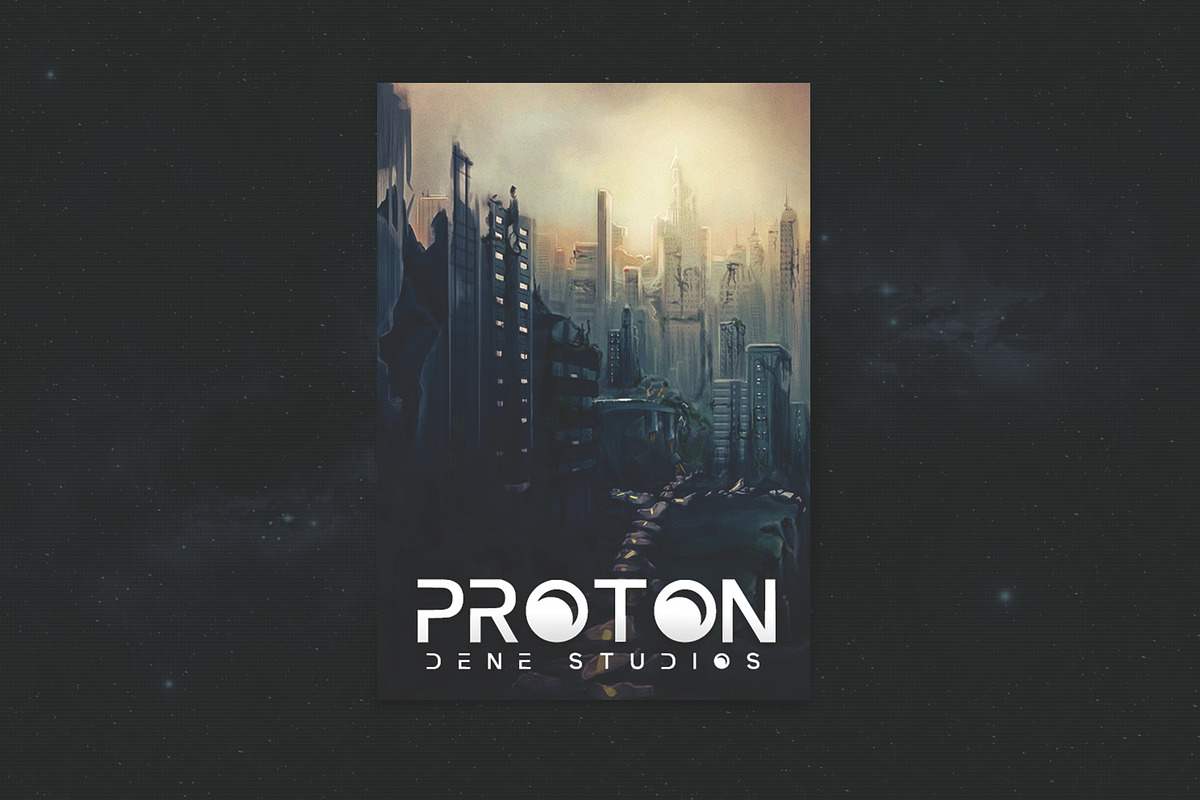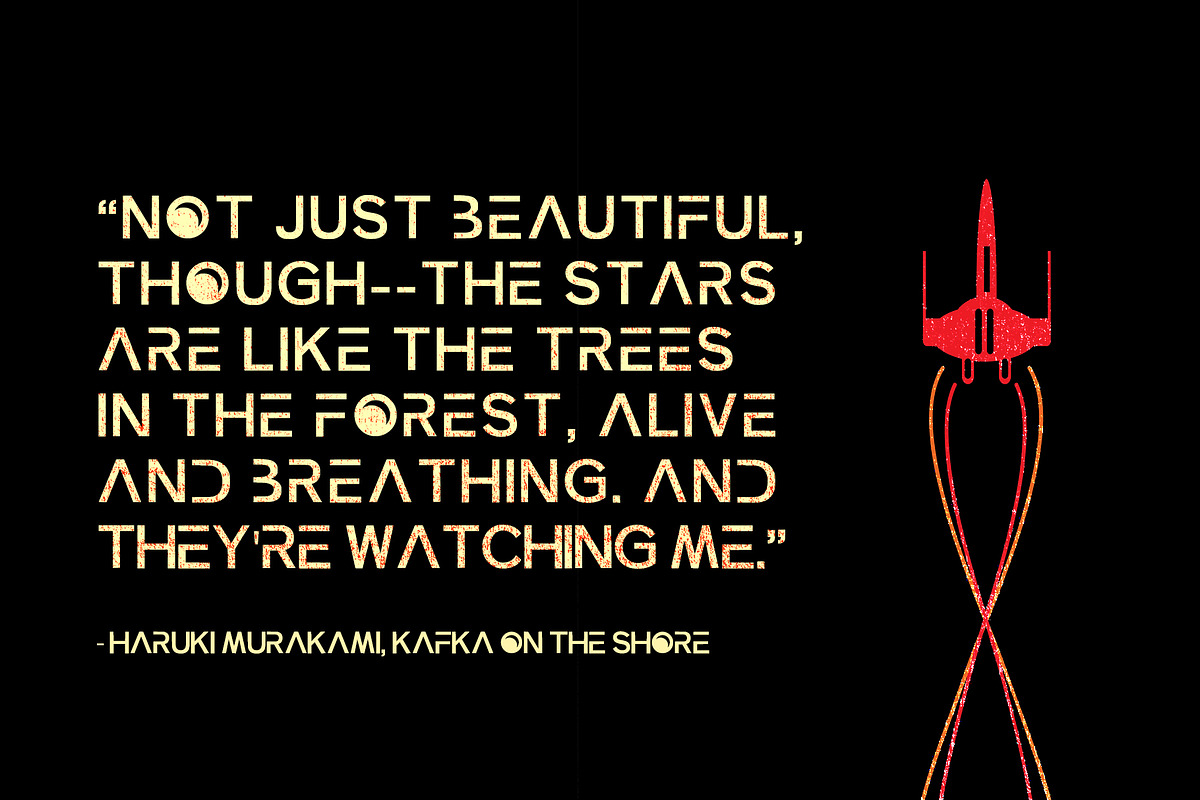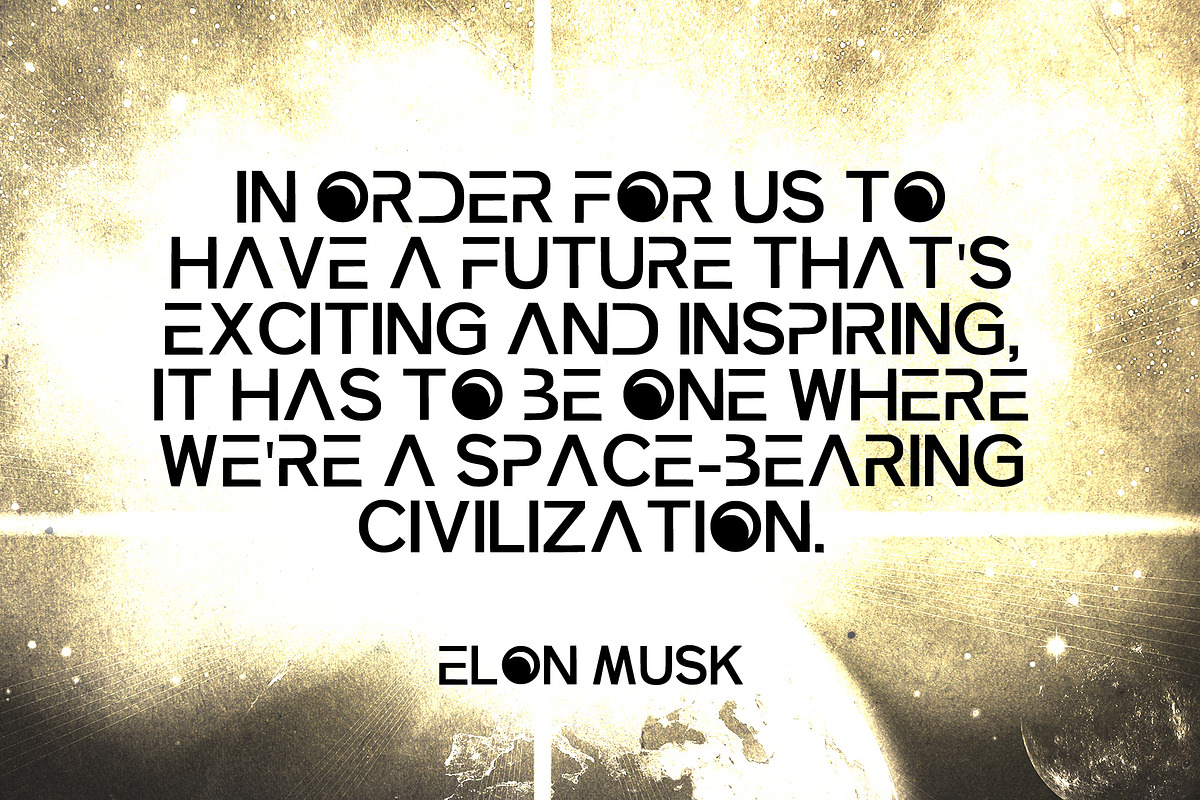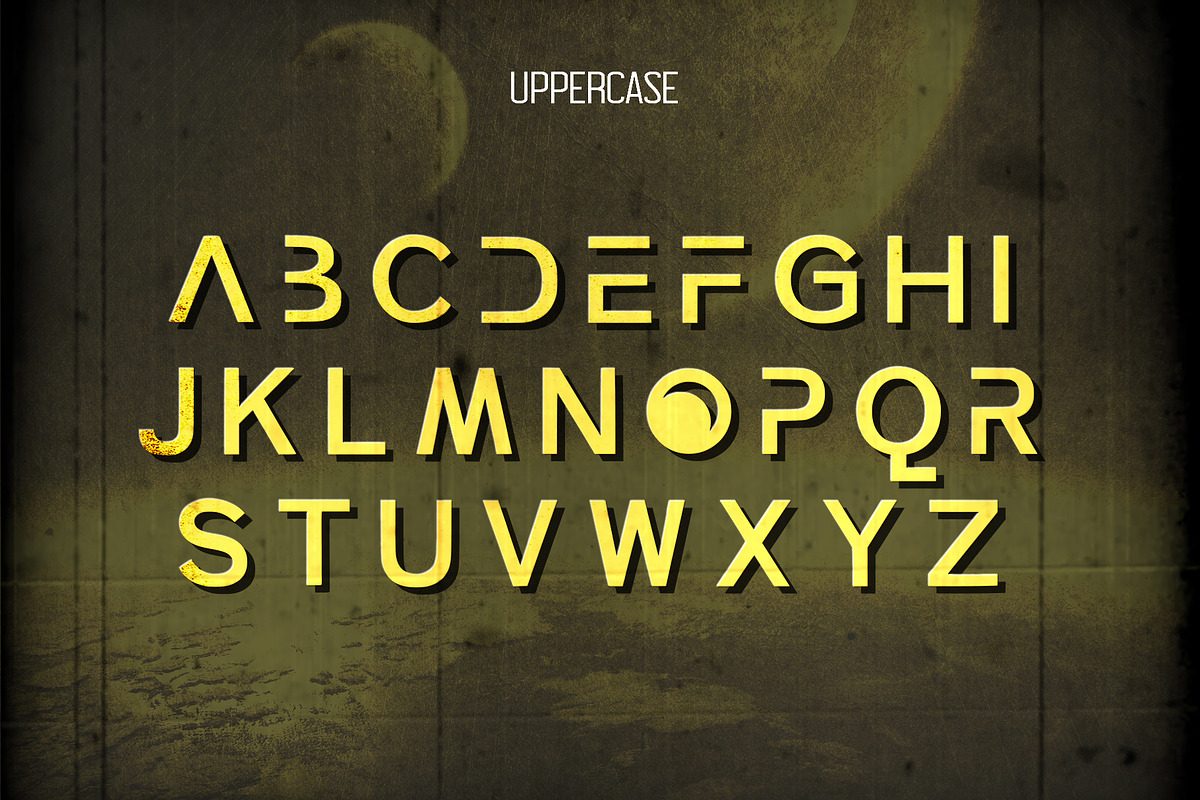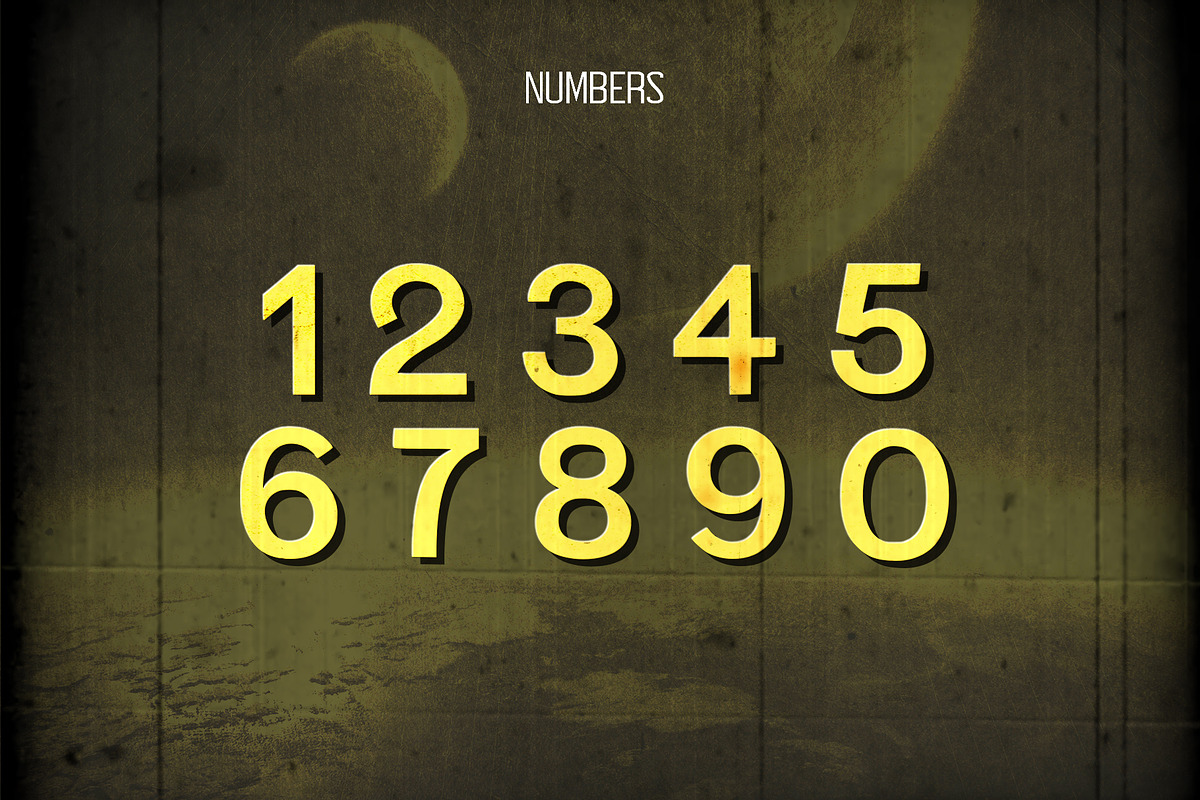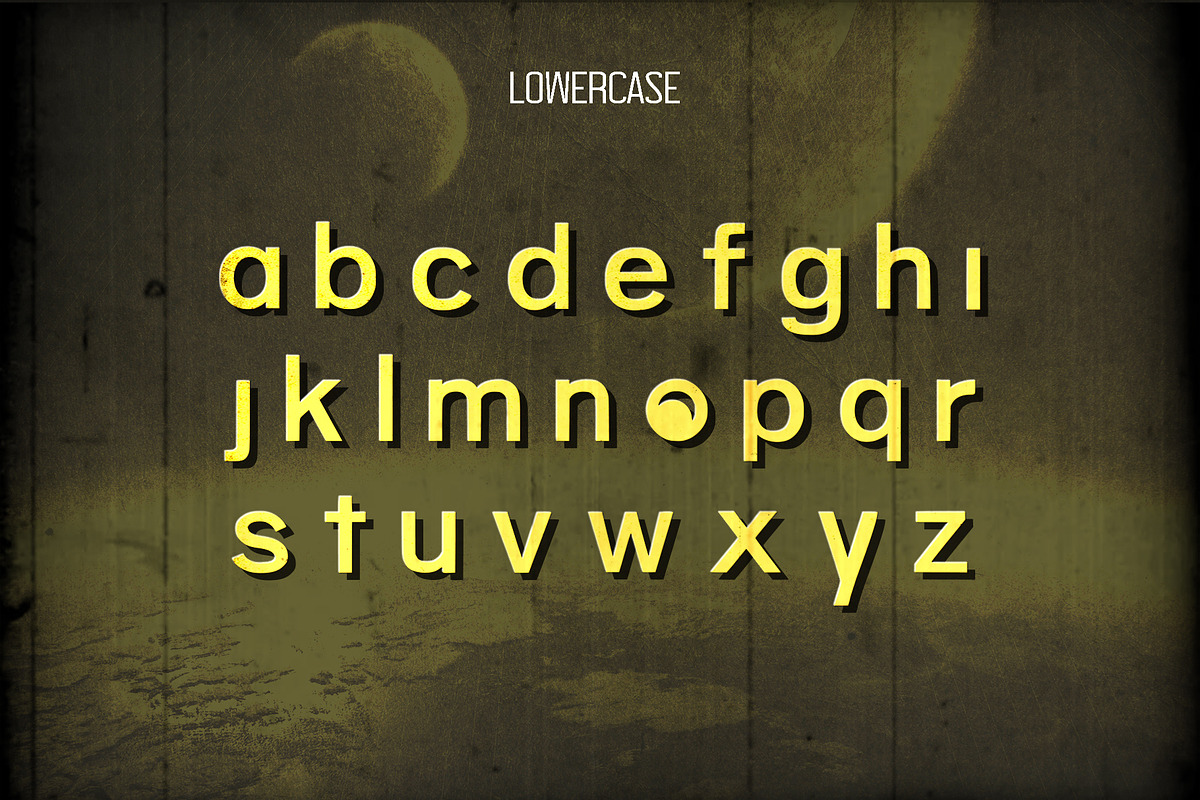
Lost in Space Typeface
Lost in Space is a unique and creative design that has been passionately handcrafted to give you a futuristic typeface. Inspired by the Lost in Space TV series. It contains upper and lowercase letters as well as numbers.
Lost in Space Typeface by Dene Studios fits naturally into Branding, posters, packaging, typography.